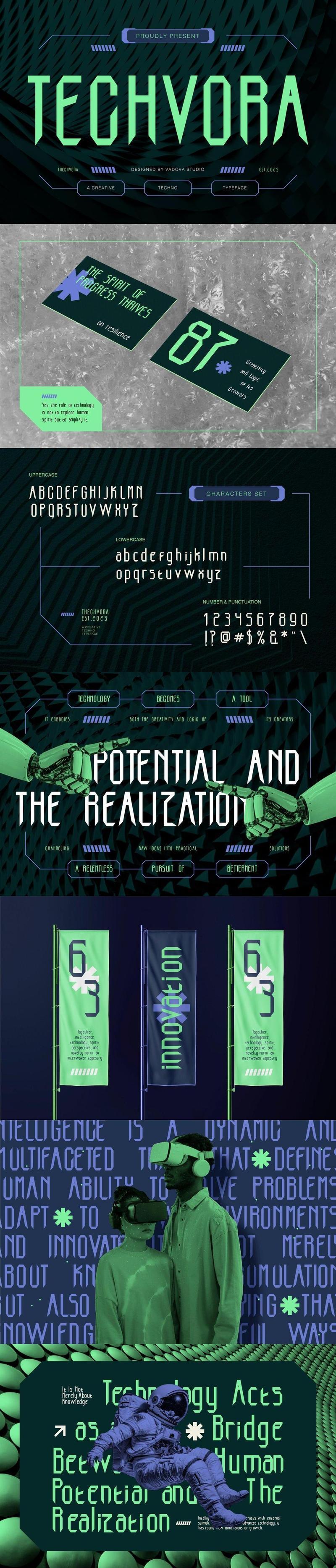
Techvora Creative Font 6P7SC4C
Elevate your designs with **Techvora Creative Font**, a modern font perfect for adding elegance and style to your projects. Whether its for quotes, logotypes, magazine headers, or more, this versatile typeface ensures your text stands out beautifully.
* Uppercase & Lowercase characters
* Numeral & Punctuations